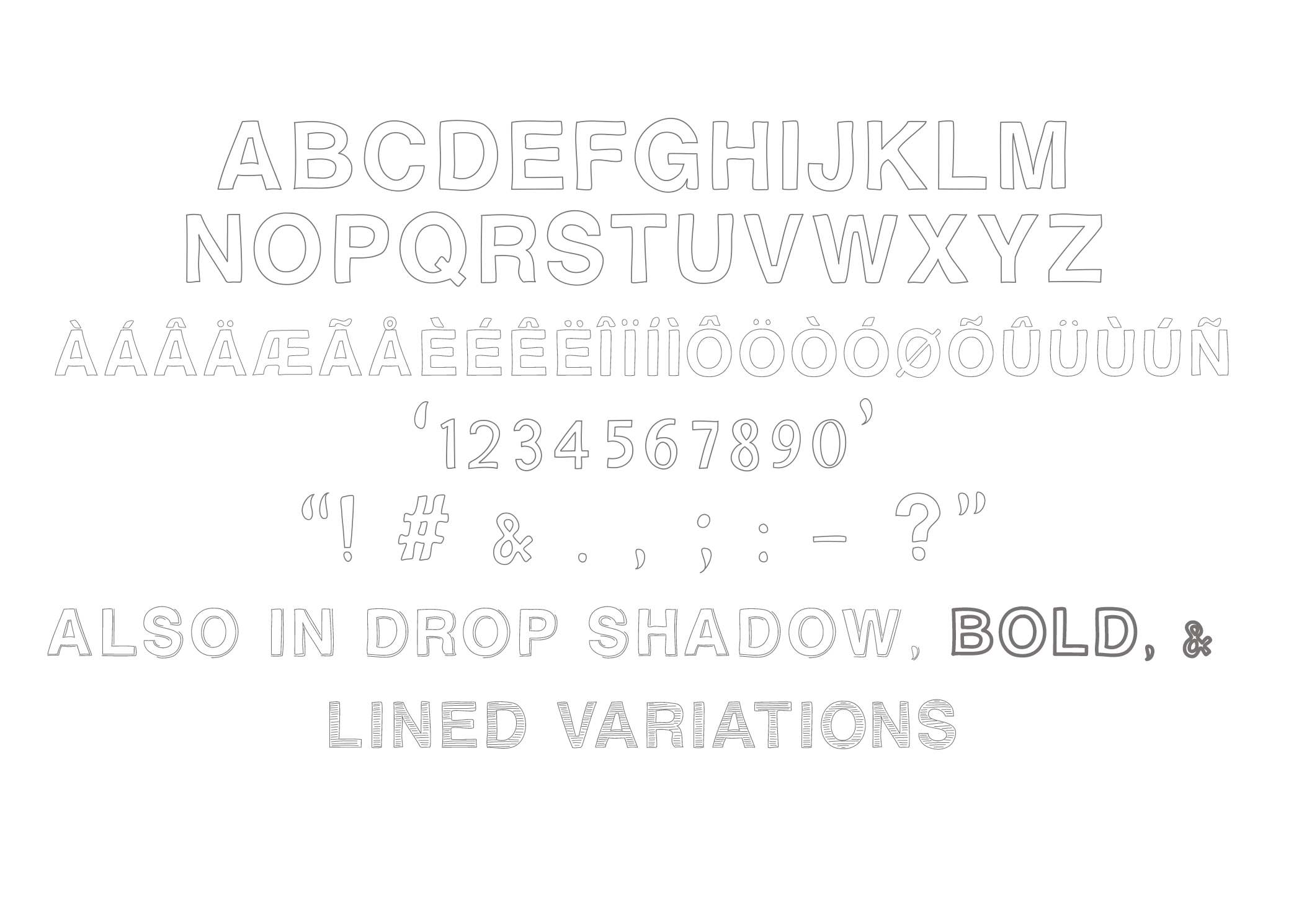
BRAVURA - Hand-Drawn All Caps Font
BRAVURA is an all caps font and includes latin accented letters, numbers, and a selection of symbols.
The product contains four variations:
- All Caps
- Drop Shadow
- Bold
- Lined